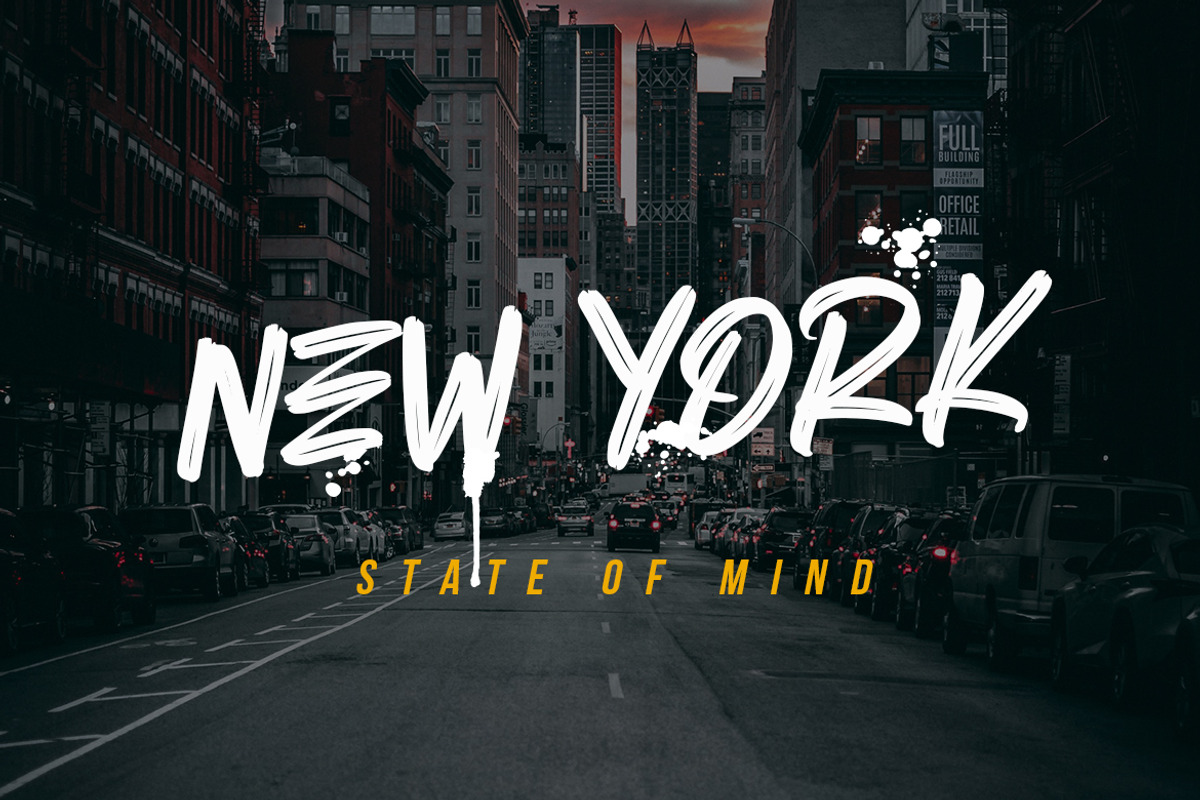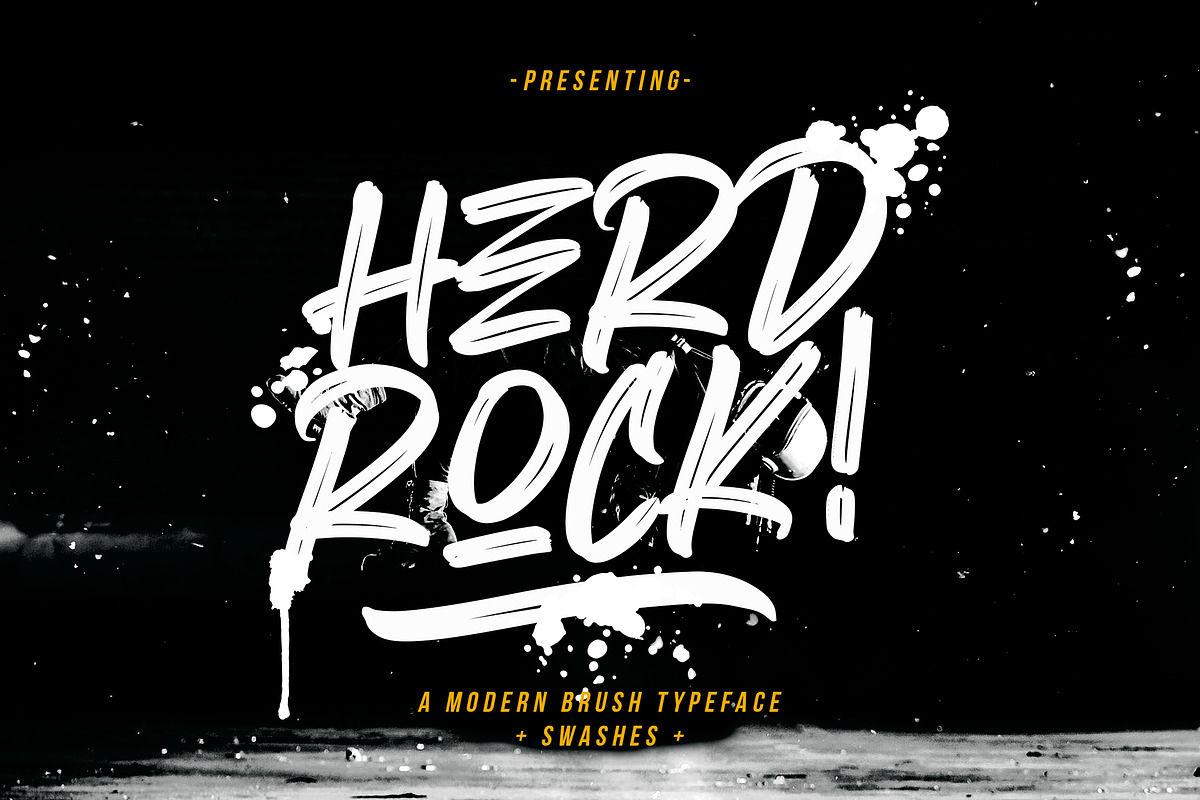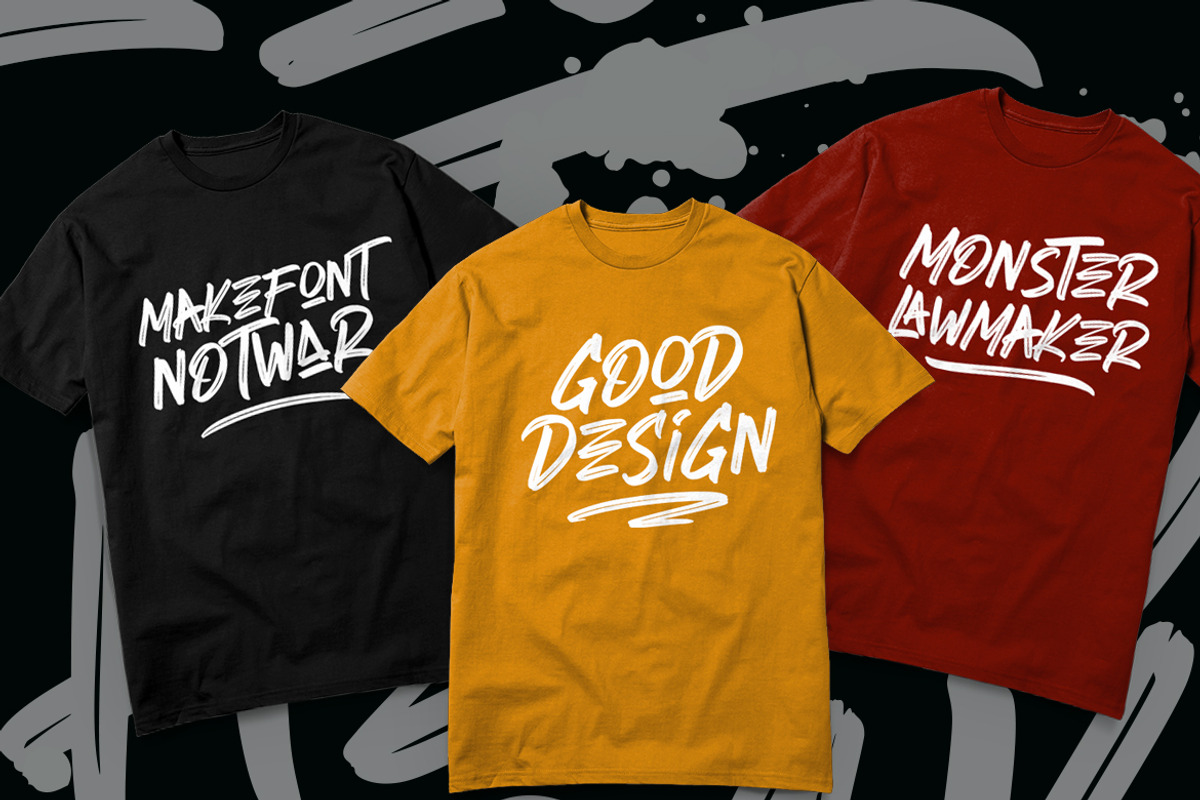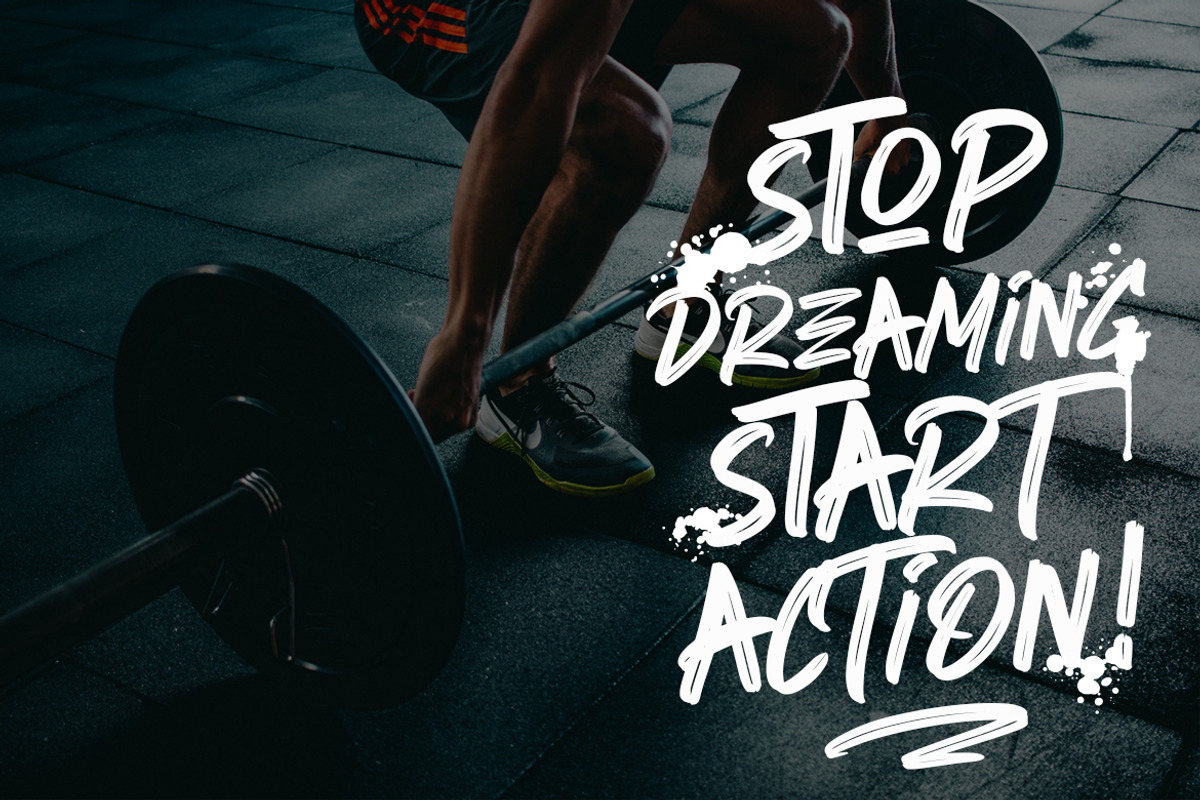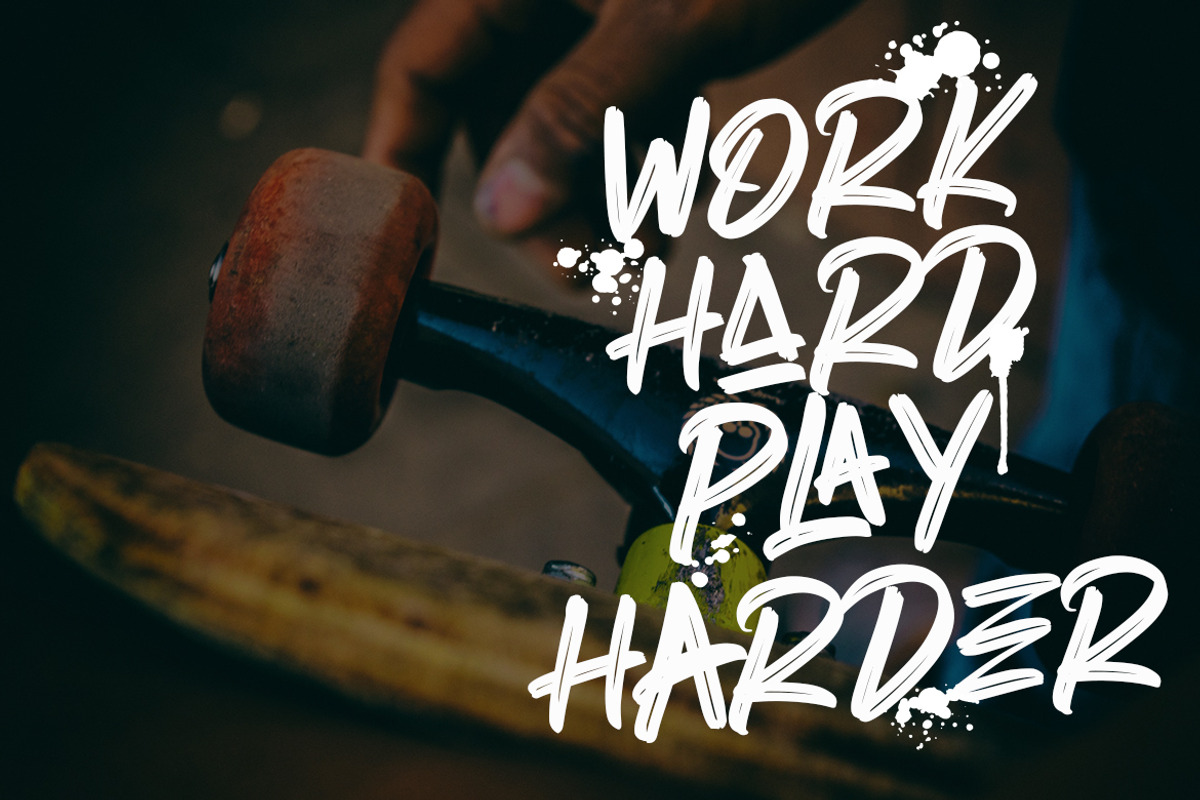
Herdrock Brush Advertisement Font
Herdrock is a supercharged brush font bursting with inline striping modern style.
Herdrock is perfect for branding projects, logo, wedding designs, social media posts, advertisements, product packaging, product designs, label, photography, watermark, invitation, stationery and any projects that need handwriting taste.
Why Herdrock Brush Advertisement Font is worth a look
Herdrock Brush Advertisement Font by Creatype Studio fits naturally into Branding, posters, packaging, typography.